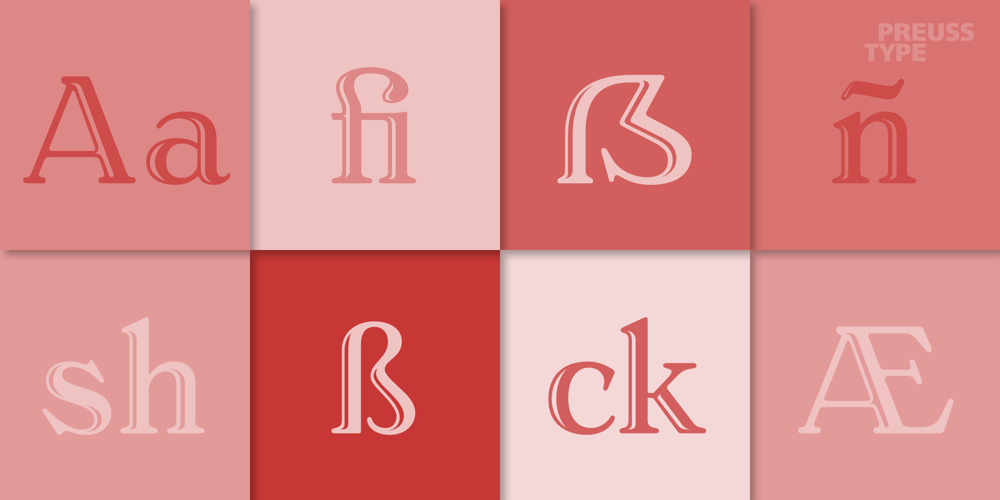
Aureata Font Family was designed by Ingo Preuss and published by preussTYPE. Aureata contains 2 styles and family package options. Whenever I’ve stayed in Munich my friend Michael Bundscherer and I go on a typographical expedition. When we talk about that, we remember the bygone world of sign painter. On one of the facades of a furniture shop in Munich, you can discover the lettering of the name in golden letters. This one convinced us because of the simple elegance Art Deco. These letters on the facade are in any case the character set, which forms the basis of this document. The missing (especially the lowercase letters and the numbers) were modeled. The “OPEN” called version tries to replicate the 3-D effect. The font is particularly suitable for shorter texts and headlines.